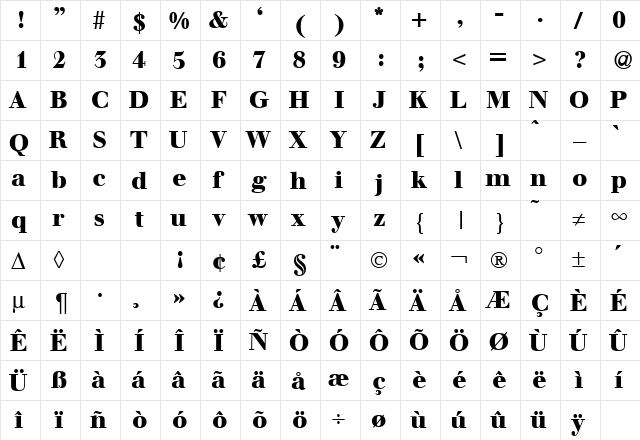
WalbaumDisplayHeavy Regular
Design Context for WalbaumDisplayHeavy Typeface
WalbaumDisplayHeavy is built around its visual character rather than neutral utility — its distinctive forms are designed to make an impression at display sizes.
Font Pairing: Pair with a clean neutral sans-serif for body copy to let WalbaumDisplayHeavy's character lead without overwhelming the composition.
Pro Tip: Use WalbaumDisplayHeavy exclusively at display sizes — it was designed to be seen, not read at length. Let a neutral companion handle body copy.